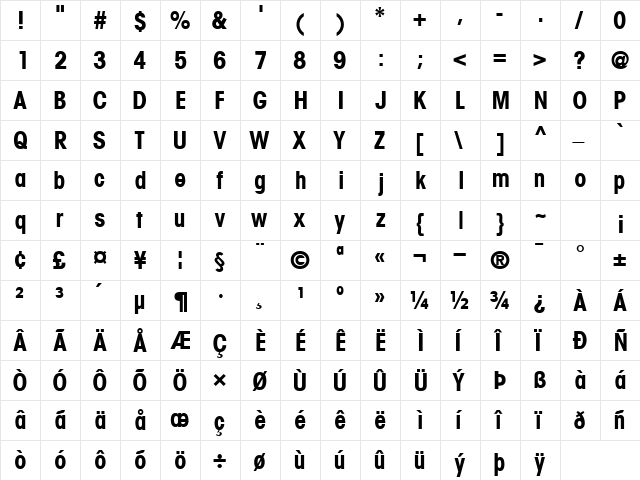
TrendexCondSSK Bold Font Preview
Design Context for TrendexCondSSK Typeface
TrendexCondSSK takes a measured approach to typography — its balanced proportions and neutral character make it a reliable workhorse for both digital and print work. The heavy weight commands attention and anchors typographic hierarchies. The condensed width makes it efficient for tight spaces without sacrificing legibility.